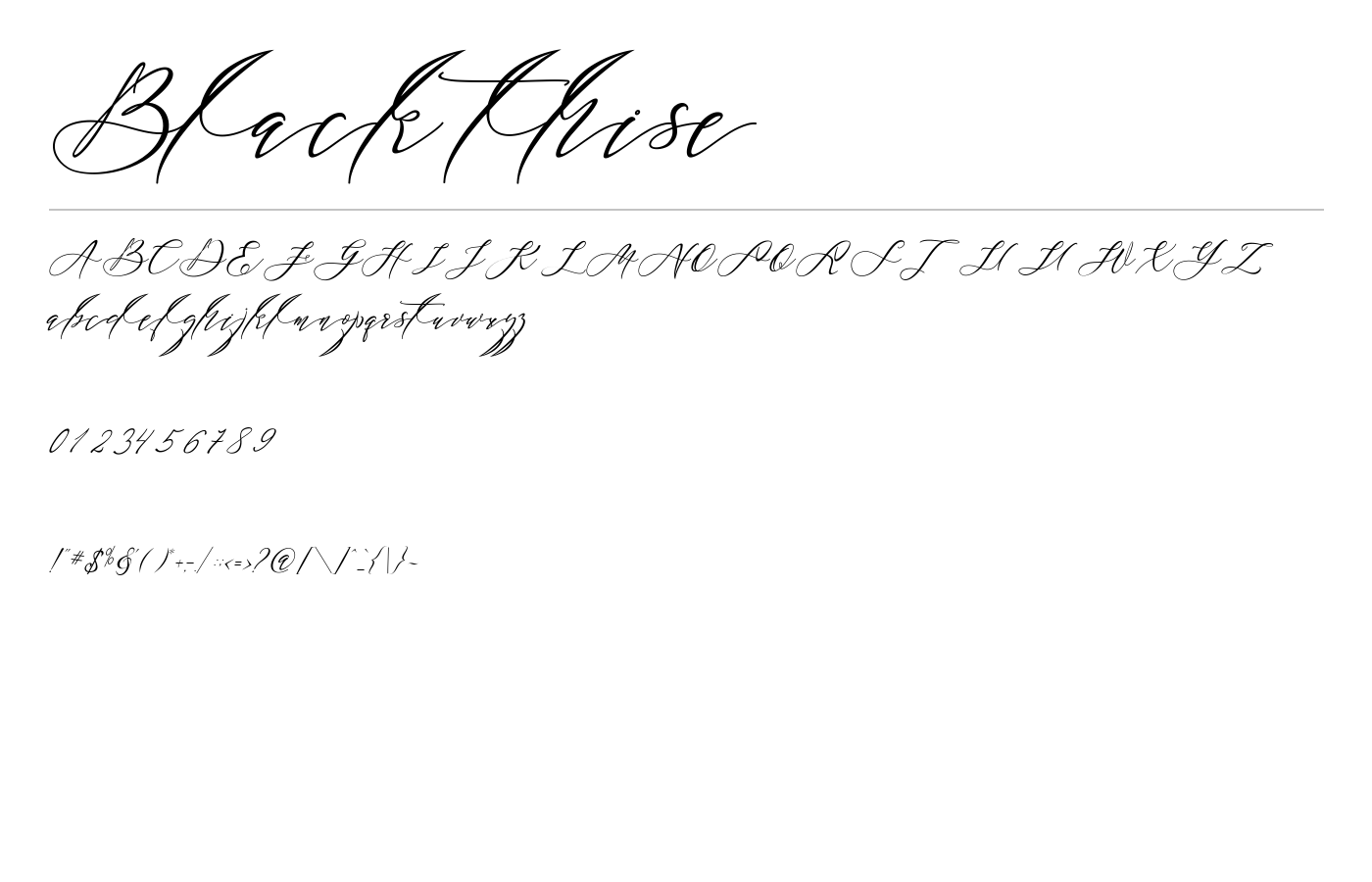
Black Thise is an elegant, delicate script font with a handwritten calligraphic style featuring fine, flowing lines and graceful, high-contrast strokes. Its slender, ornate letterforms evoke a sophisticated and romantic mood, making it ideal for wedding invitations, luxury branding, or any design that requires a touch of refined beauty and personal flair. This font shines in decorative headlines and accents where its artistic curves can be fully appreciated.
Black thise Font